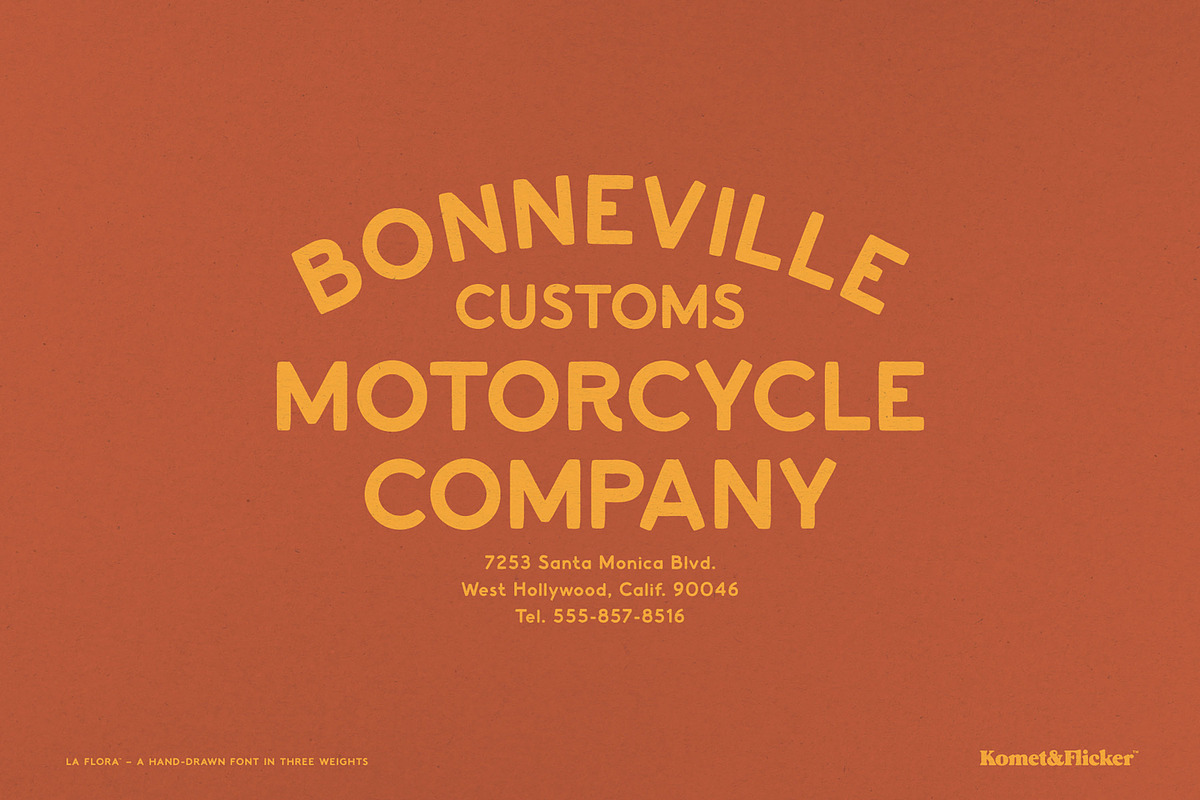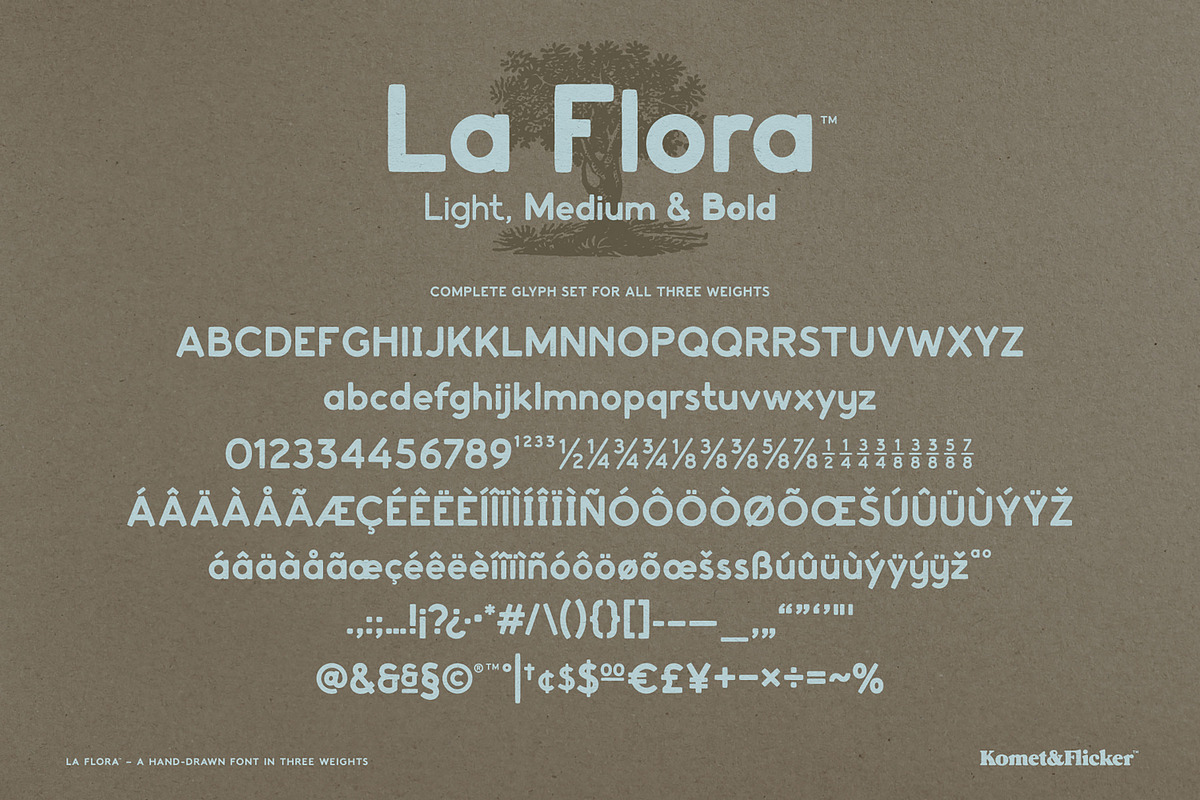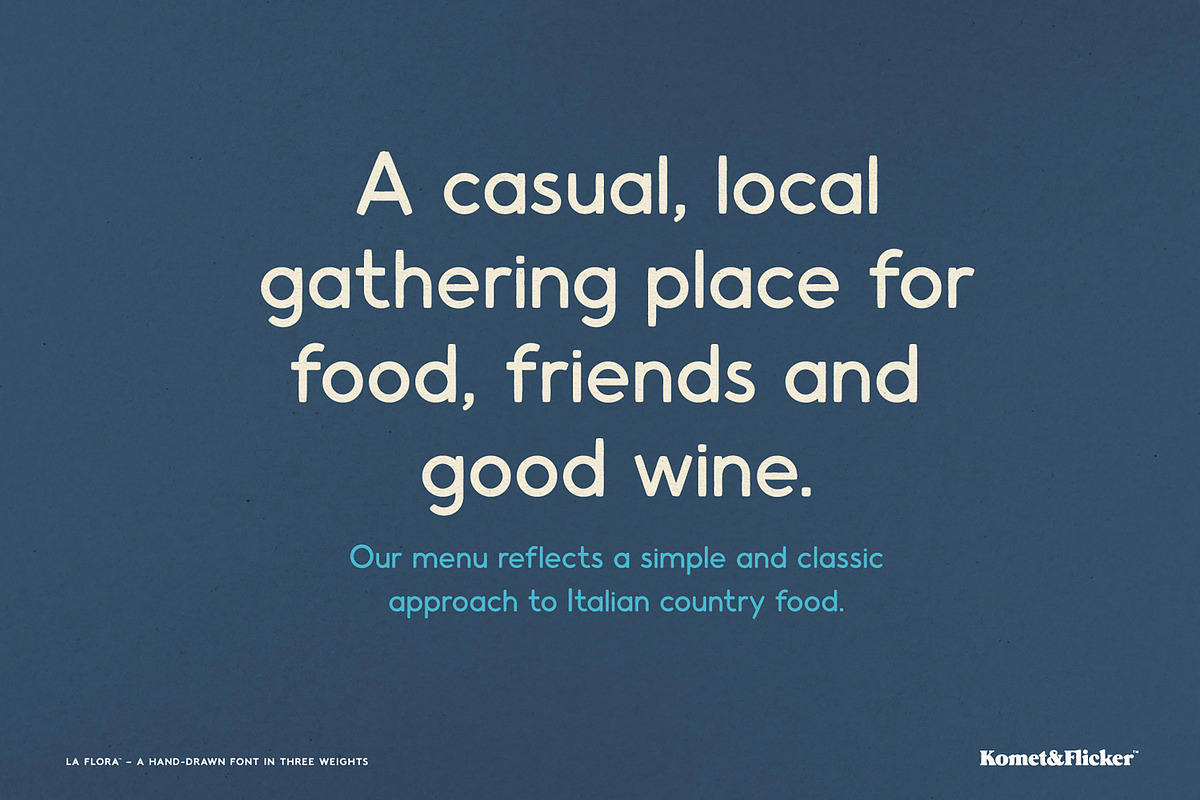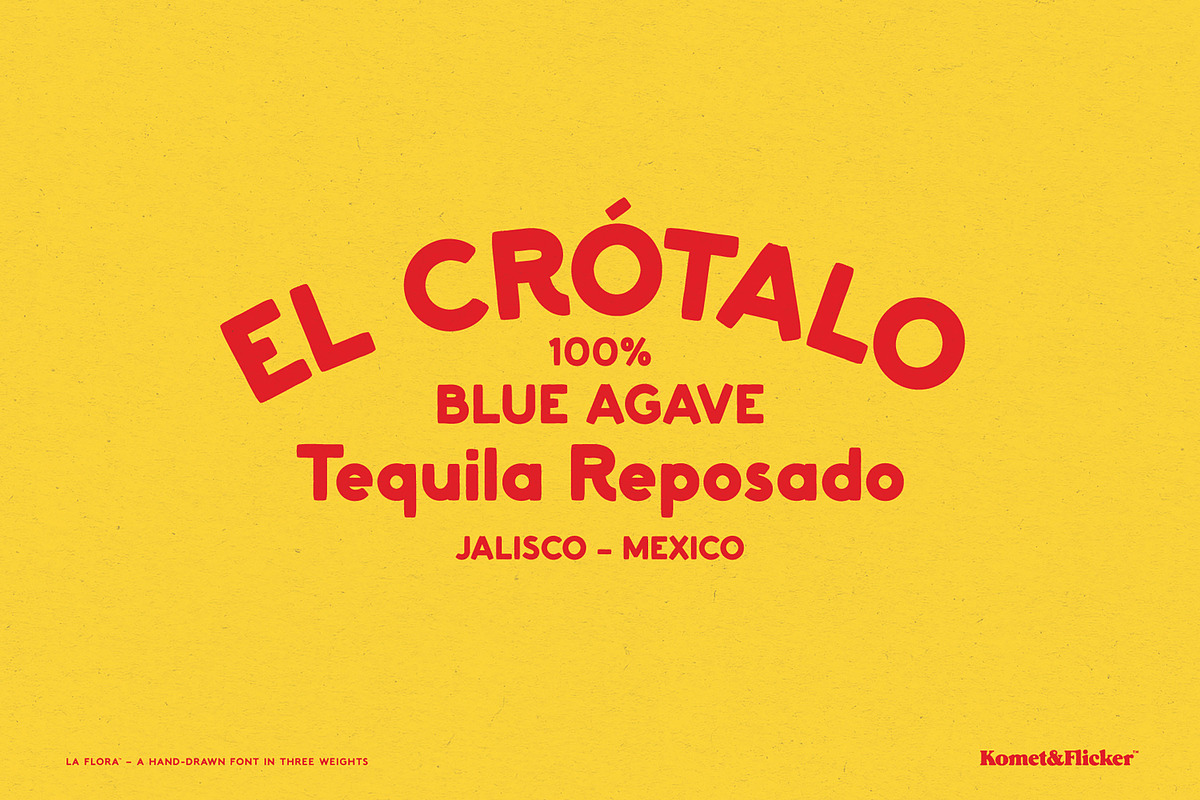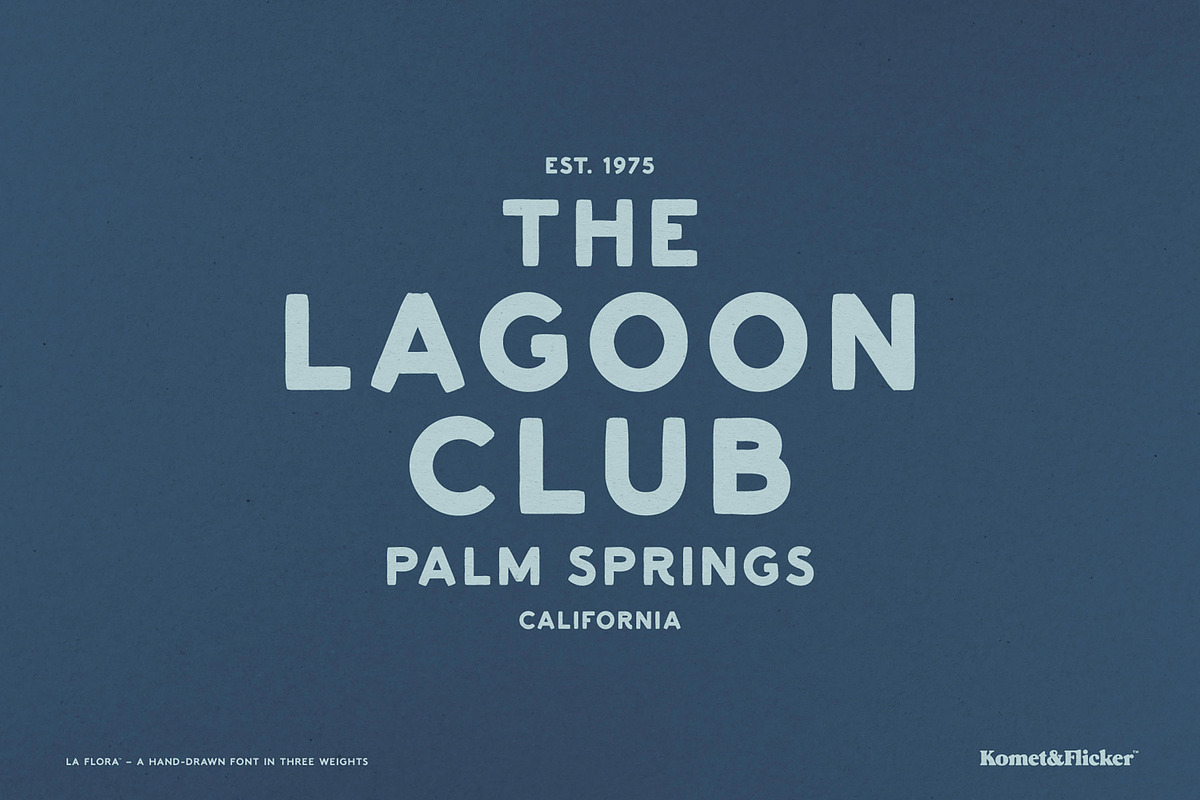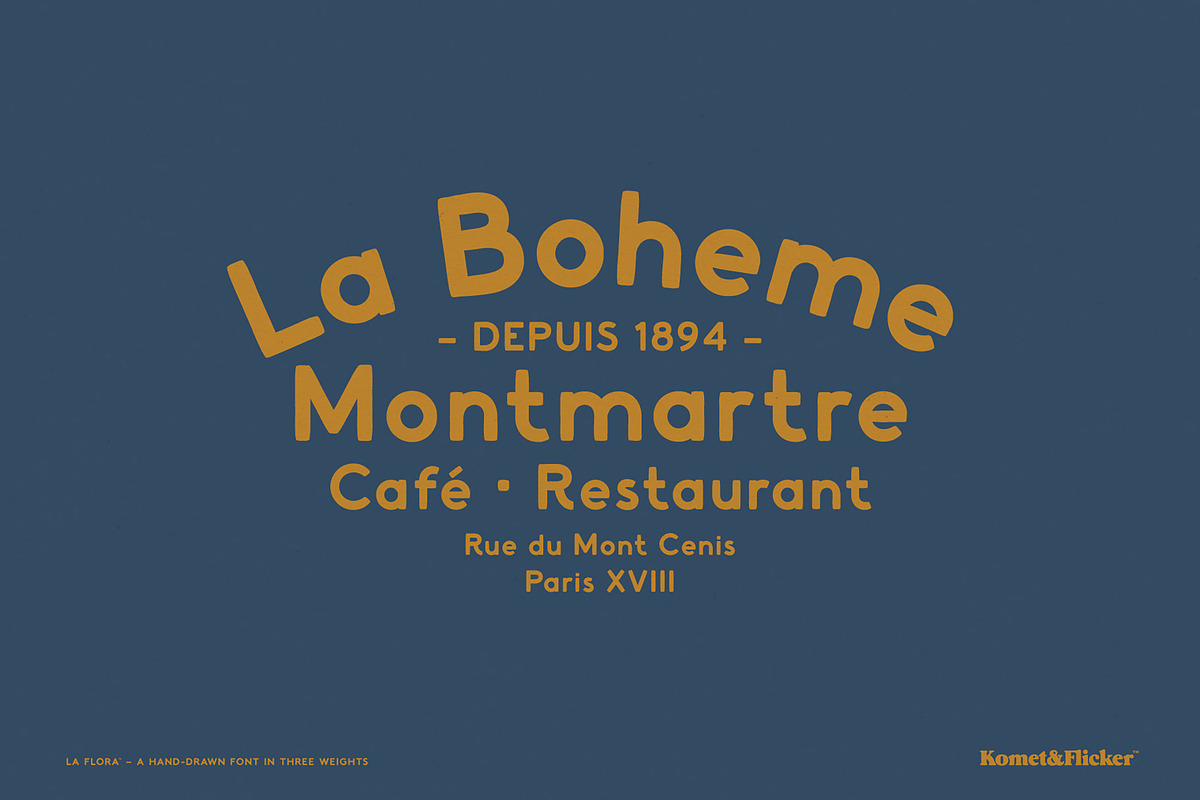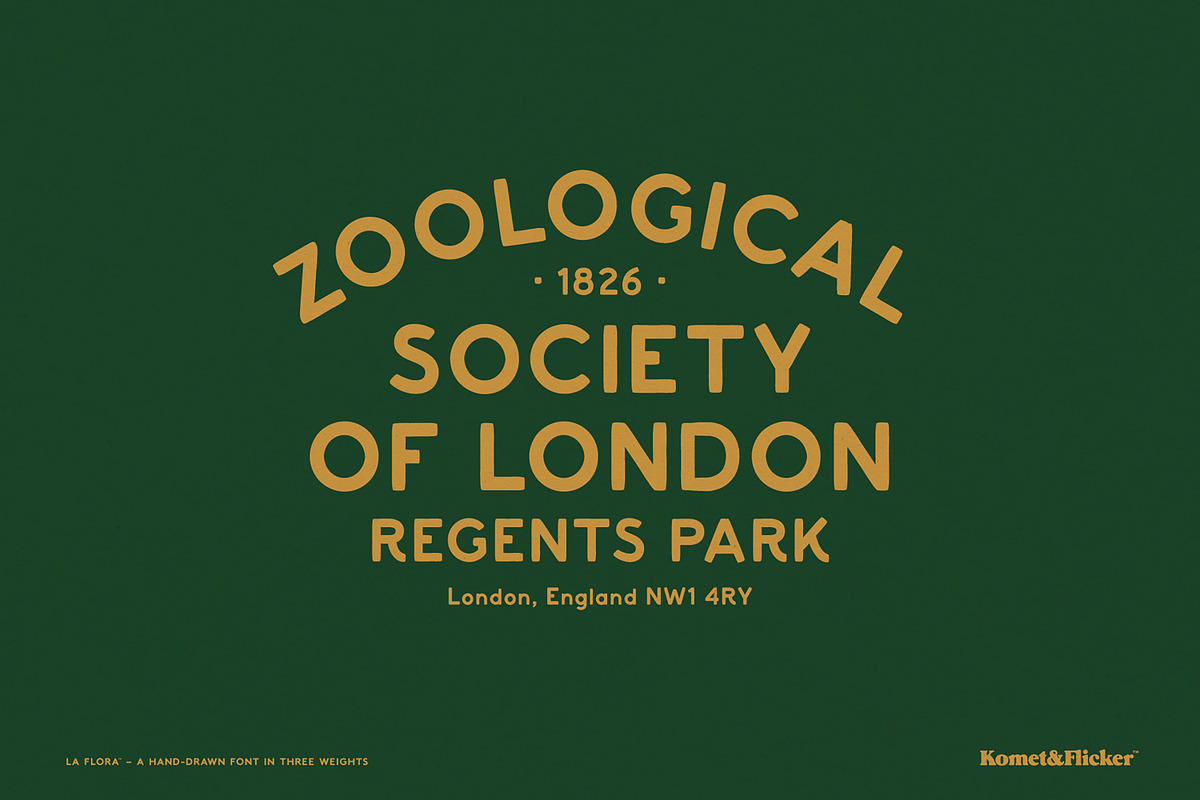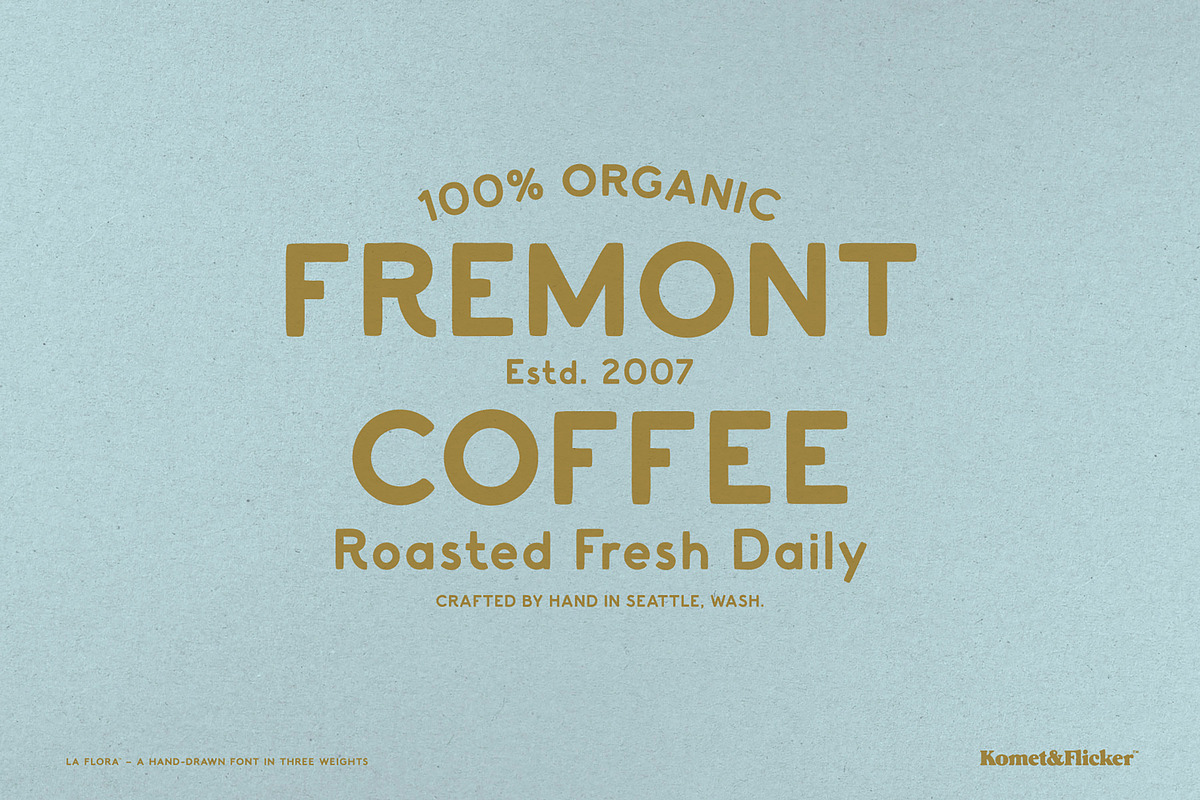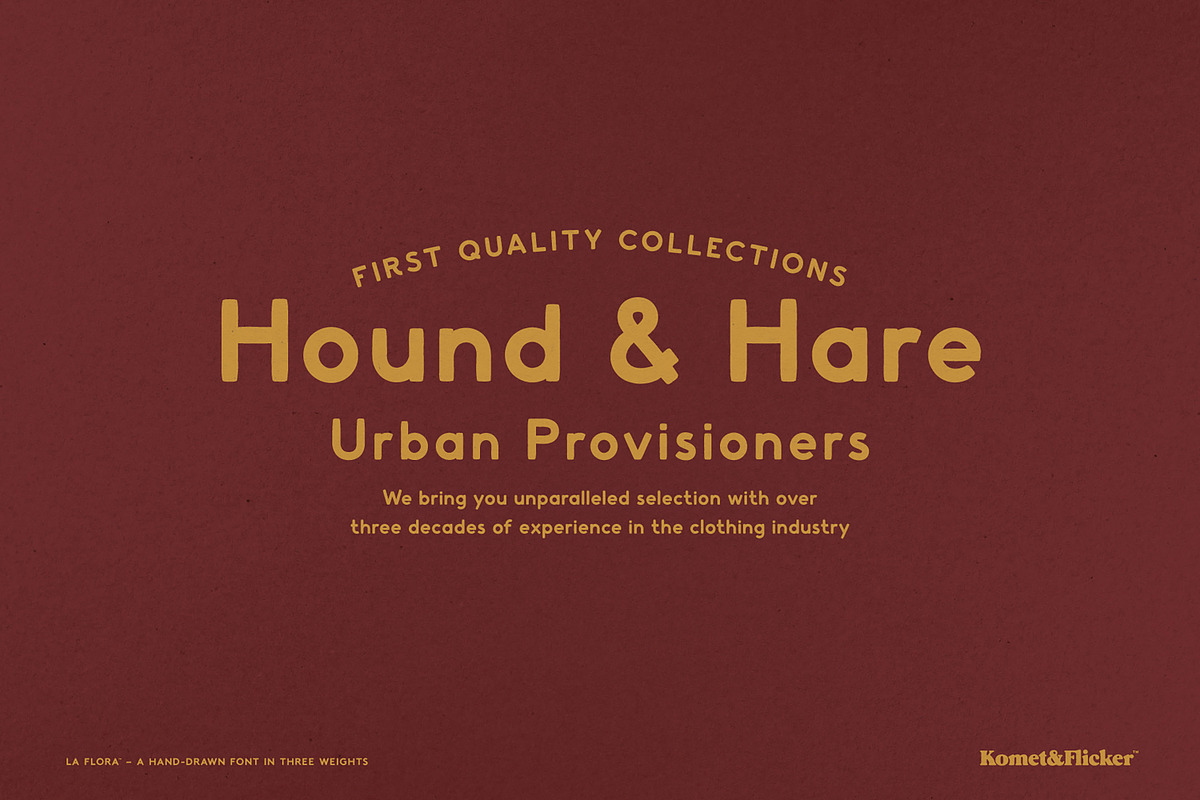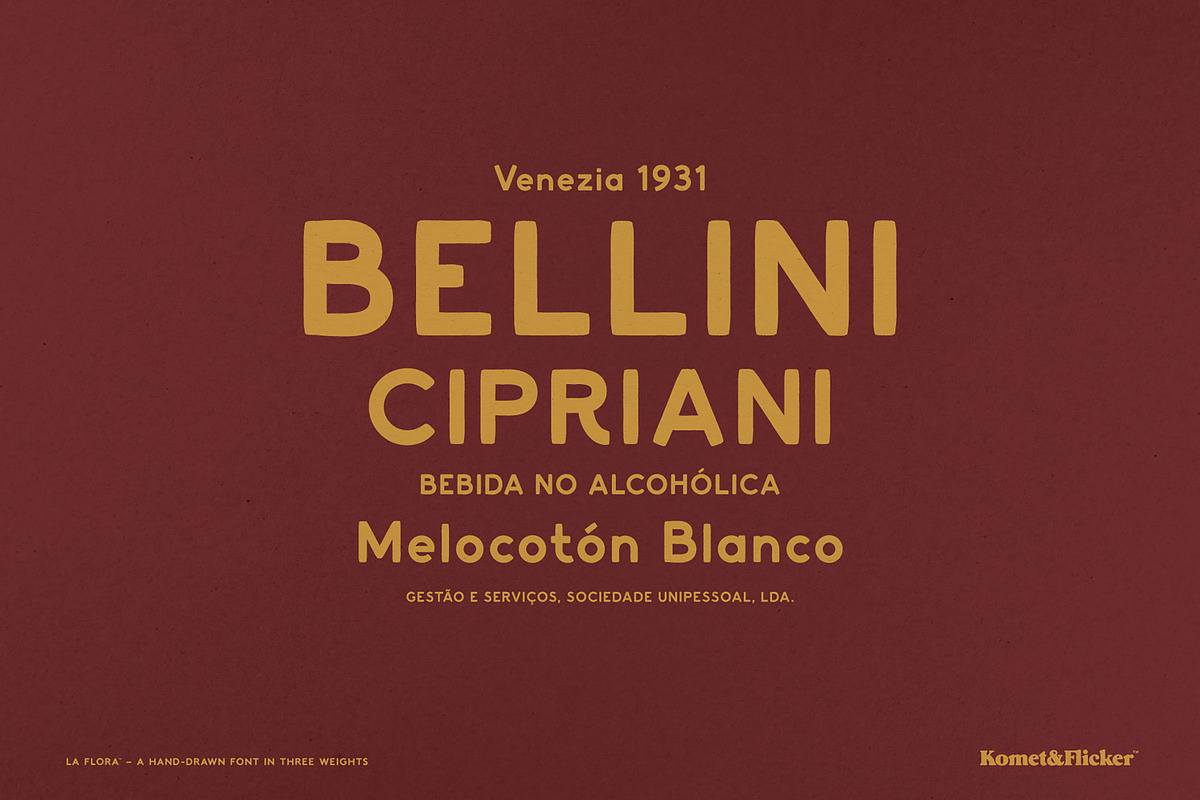
La Flora
La Flora is a sans serif typeface that bridges the past and present, drawing on the nostalgia of mid-century design while feeling at home in a modern context. Whether used in branding, editorial layouts, or packaging, it carries an energy that is equally timeless and fresh.
Each letterform is hand-drawn with a rough brush stroke, giving the typeface an warm and organic imperfection that feels unmistakably human. It strikes a balance: confident enough to command attention, yet approachable enough to invite people in.
La Flora comes in three weights: Light, Medium, and Bold, all offering versatility across any use.
Full A-Z upper and lowercase basic latin characters
Select European specific characters
Numbers, punctuation, and select symbols
Two styles of pre-made common fractions